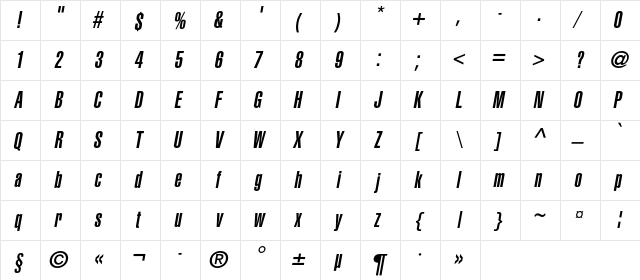
AGLettericaUltraCompressedC Italic
Design Context for AGLettericaUltraCompressedC Typeface
AGLettericaUltraCompressedC offers clean, dependable letterforms without strong stylistic allegiance, making it a practical choice for designers who need flexibility. Its italic angle brings a sense of urgency and motion to the letterforms.
Pro Tip: Try AGLettericaUltraCompressedC for annotation and caption copy alongside an upright companion — the contrast in angle creates a dynamic but ordered typographic system.